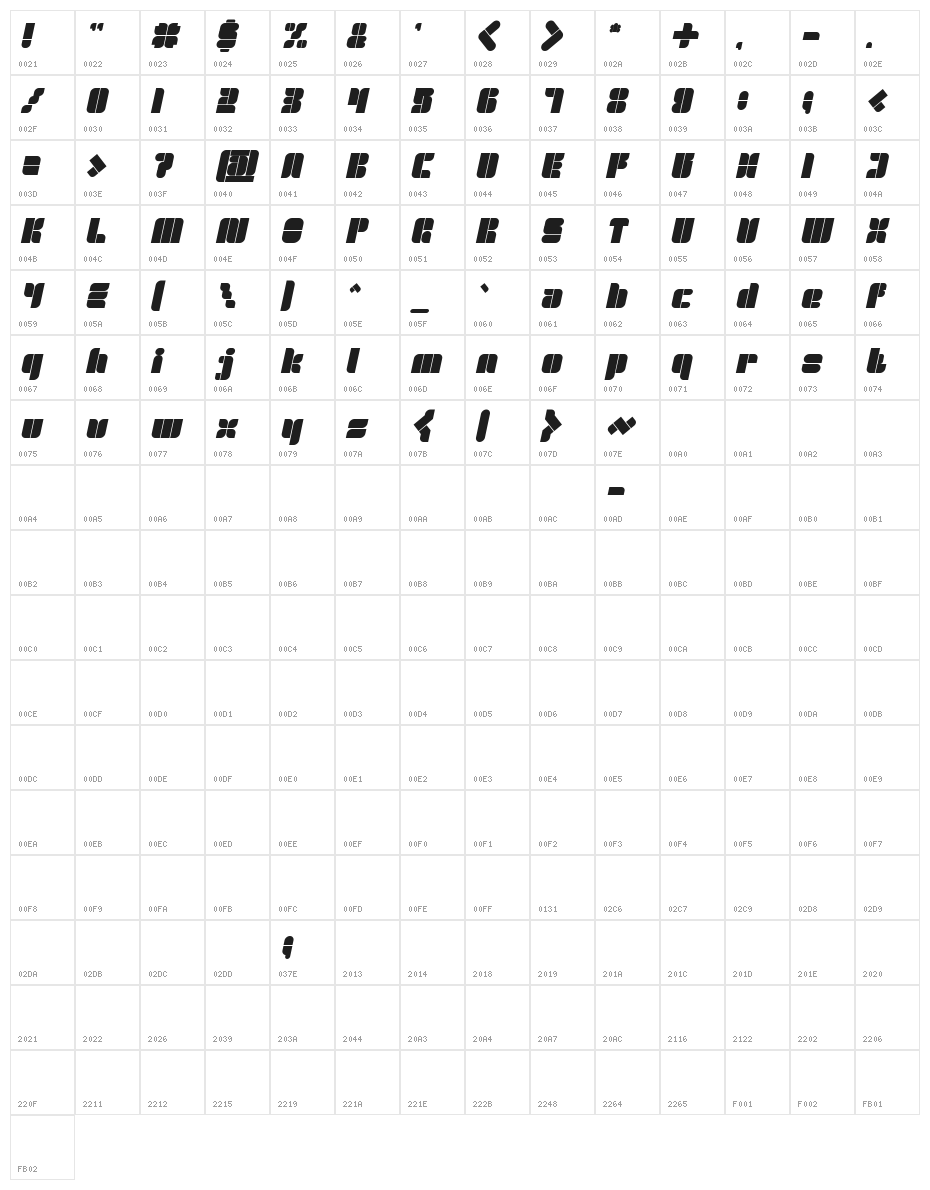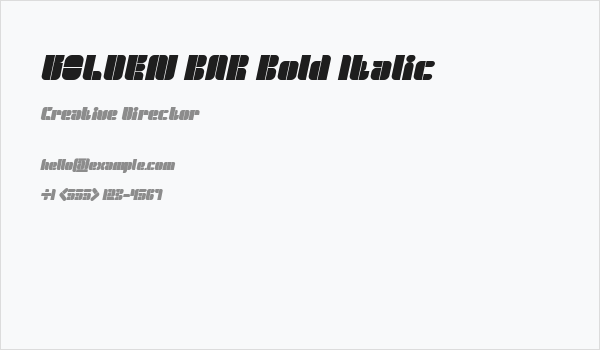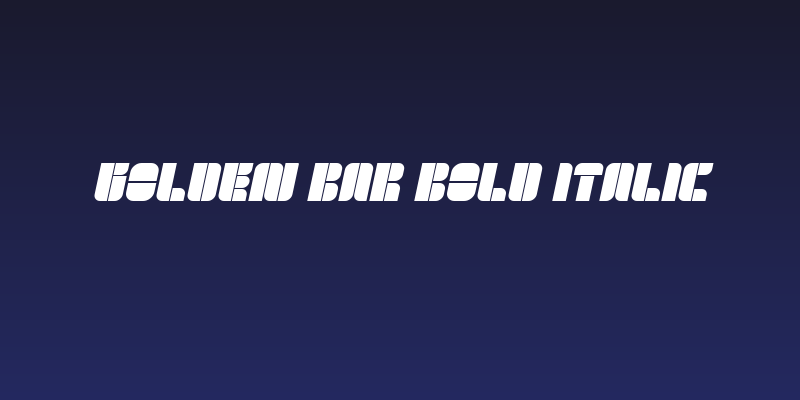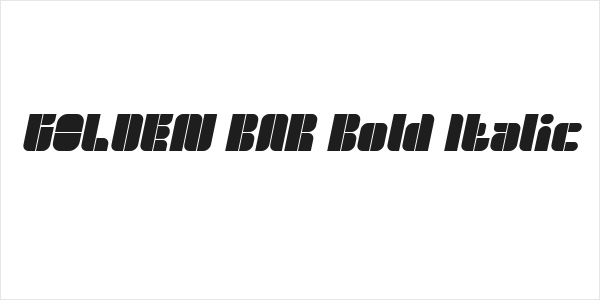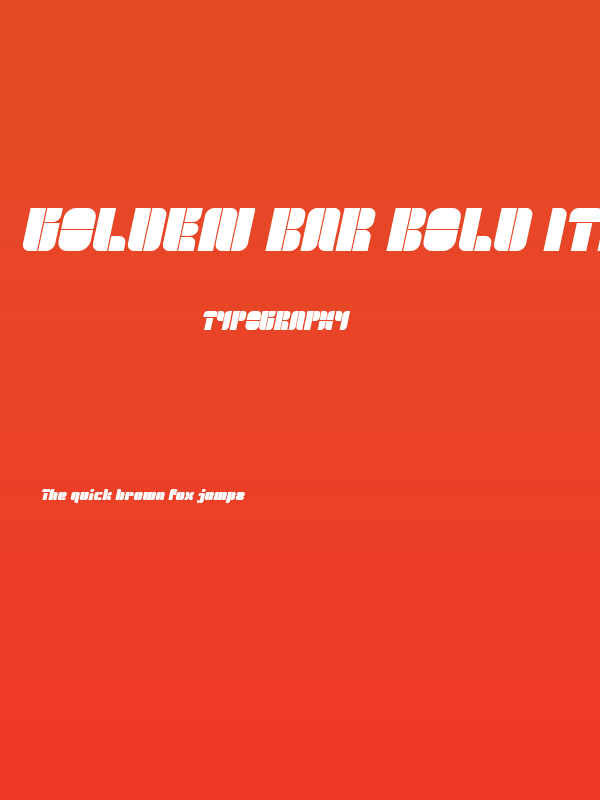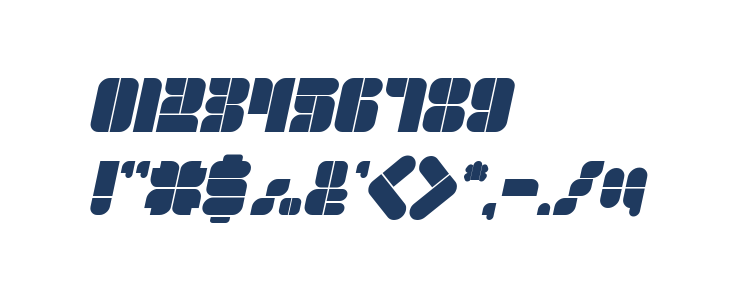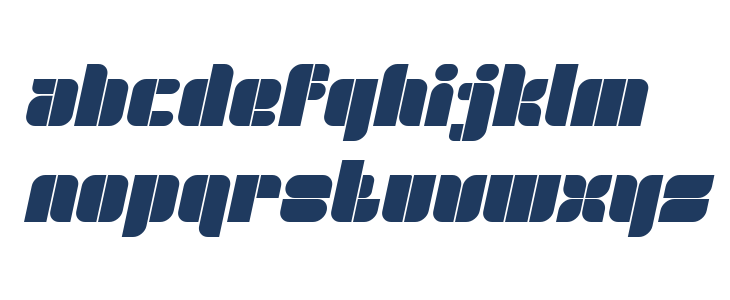
GOLDEN BAR Bold Italic Font
GOLDEN BAR Bold Italic Description
This bold and italic typeface features a unique, futuristic design with a strong geometric influence. The characters are constructed with thick, rounded strokes that create a sense of movement and dynamism. The font's boldness is accentuated by its italic slant, giving it a forward-leaning posture that suggests speed and modernity. The letterforms are wide and expansive, with a consistent stroke width that maintains a uniform appearance across all characters. This font is particularly striking in uppercase, where its bold and blocky nature is most pronounced. The lowercase letters maintain the same stylistic elements, ensuring cohesion throughout the typeface. Numbers and special characters are designed with the same attention to detail, making this font versatile for various applications.
| Proposed Projects | Ideal for technology branding, sci-fi posters, video game titles, and modern advertising. |